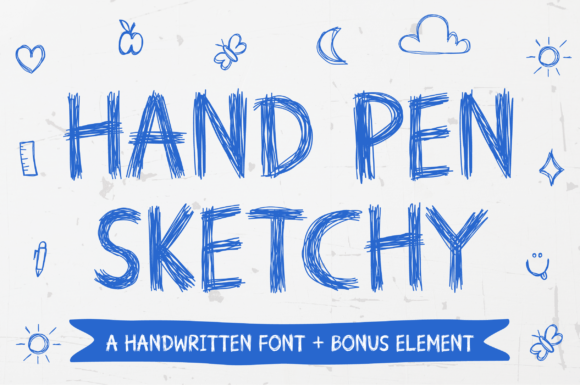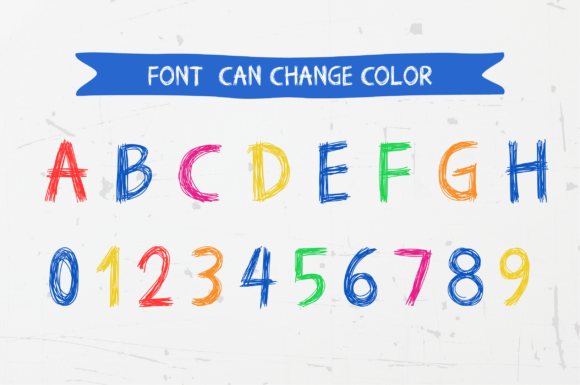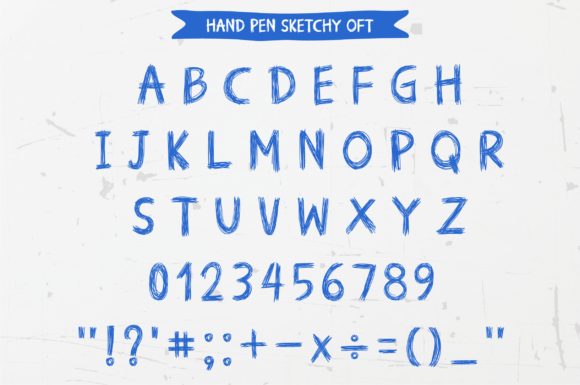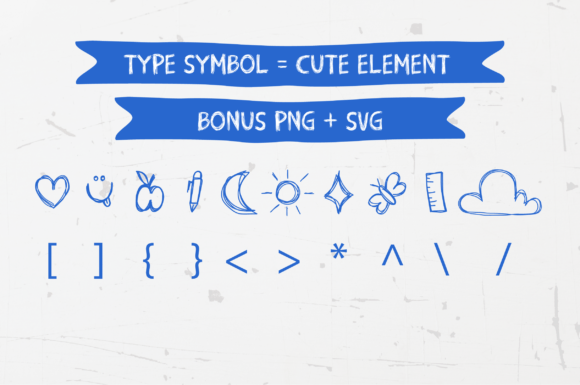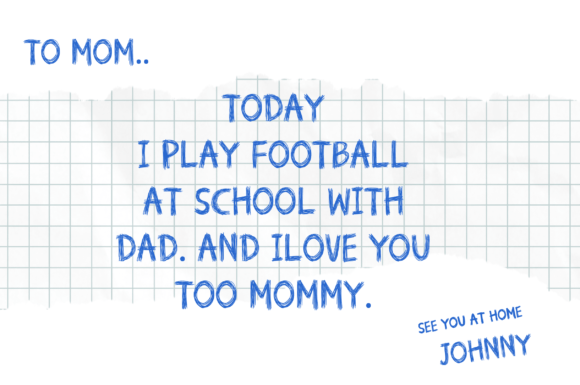
Hand Pen Sketchy Font
“Hand Pen Sketchy” is a playful kids’ doodle font with a sketchy style, perfect for bringing out your inner child. You can easily change the colors as you type, adding a fun touch to your projects. The font includes cute symbols to enhance your designs. It also comes with bonus PNG and SVG elements—don’t forget to download these extra files! Give it a try and let your creativity shine!